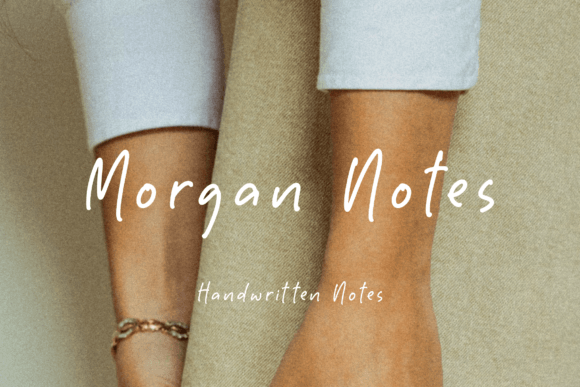
Prepare yourself to be captivated by Morgan Notes, a script font family that oozes charm and elegance, skillfully crafted by Perspectype. With its graceful curves and delicate lines, this font is a visual masterpiece that will add a touch of sophistication to your creative projects.
Unleash your inner artist and let your words dance across the page with Morgan Notes. This font is perfect for wedding invitations, thank you cards, quotes, greeting cards, logos, business cards, and any other design that calls for a handwritten touch. Its versatility knows no bounds, making it a must-have for designers, crafters, and anyone who loves the beauty of handwritten typography.
Whether you're creating a heartfelt wedding invitation, a thoughtful thank you card, or a motivational quote to inspire your soul, Morgan Notes will elevate your designs. Its charming personality and elegant style will leave a lasting impression on your audience, making your words shine with a touch of artistry.
Immerse yourself in the world of Morgan Notes and discover a font that captivates the senses. Its beautiful strokes and enchanting curves will weave a spell of elegance and charm, transforming your designs into works of art.
With Morgan Notes, you'll have the power to create designs that speak volumes. Its versatility allows you to explore a wide range of creative possibilities, from whimsical and playful to formal and sophisticated. Let your imagination soar and let Morgan Notes guide you towards design excellence.